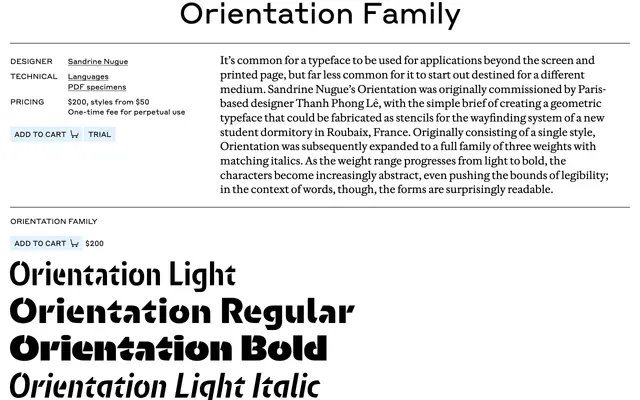
Orientation
A geometric sans by Sandrine Nugue that started life as a stencil wayfinding system for a student dormitory in Roubaix and grew into three weights with italics.
A geometric stencil sans by Sandrine Nugue, originally commissioned by Paris designer Thanh Phong Le to be fabricated as wayfinding stencils for a new student dormitory in Roubaix. Six styles cover Light, Regular and Bold with matching italics. As the weight progresses, the forms become more abstract and push the bounds of legibility, but read surprisingly well in running words. Suits architectural, environmental and display work that wants a constructed, fabricated voice.
Commercial Type describe Orientation as a geometric sans originally commissioned as a stencil wayfinding system for a student dormitory in Roubaix, France, with characters that become more abstract as weight increases.